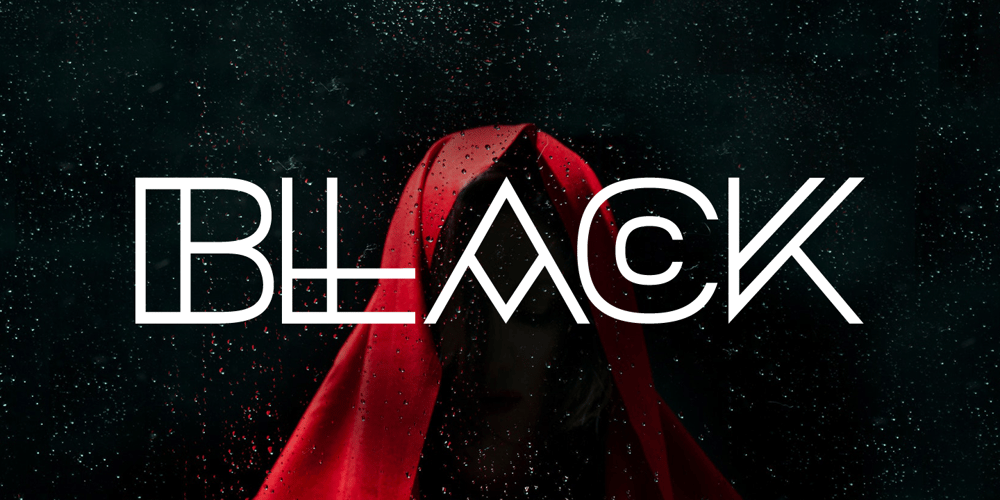
Black Magica Font Family was designed by Jean Johnson and published by Designova. Black Magica contains 8 styles and family package options. BLACK – A typeface born at midnight. A typeface that crawls to the darkness. A typeface with split-personality. A typeface that can conjure the UNKNWN.BLACK is a hybrid / mysterious typeface with a true uniqueness of it’s own. This all caps typeface has two different nature: the uppercase is defined by rare dimensions while the lowercase is purely simple & minimal. This typeface is perfectly suitable for anything that needs to stand out from crowd, be it some Ultra Modern Branding, Techno or Cosmic Themed Designs, Haunted Movie Posters, Mysterious Arts and even the Minimal Stuffs.The typeface could be perfect choice for logo / logotype design, branding, marketing graphics, banners, posters, signage, corporate identities as well as for editorial design that can bring uniqueness. Please see the examples shown above to get an idea about the capability of this typeface.Handcrafted and designed with powerful OpenType features in mind, each weight includes extended language support including Western European & Central European sets.